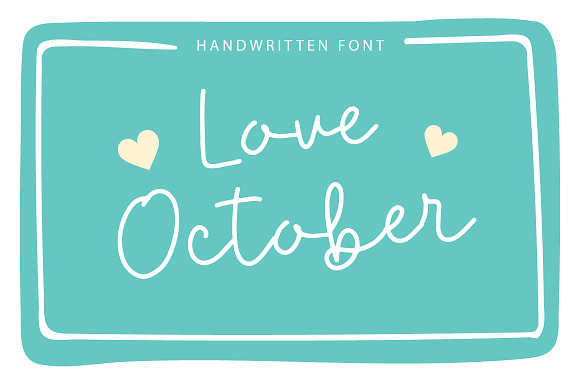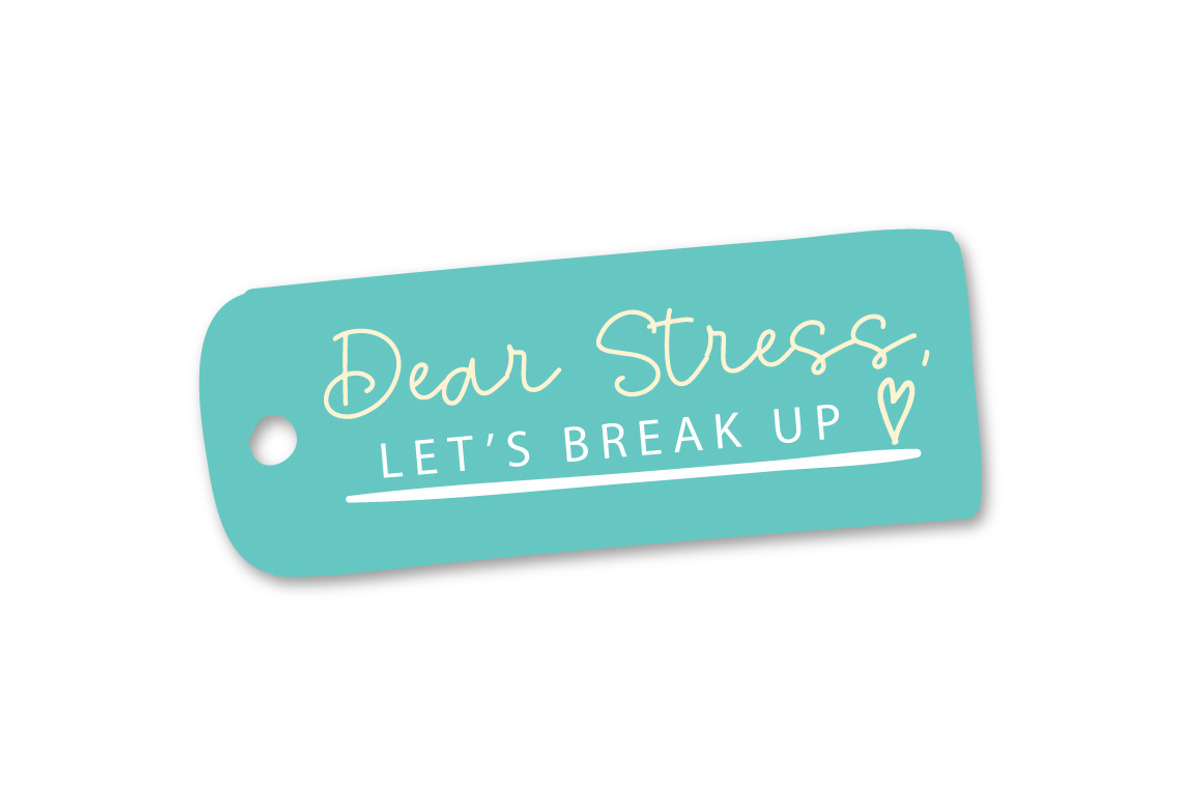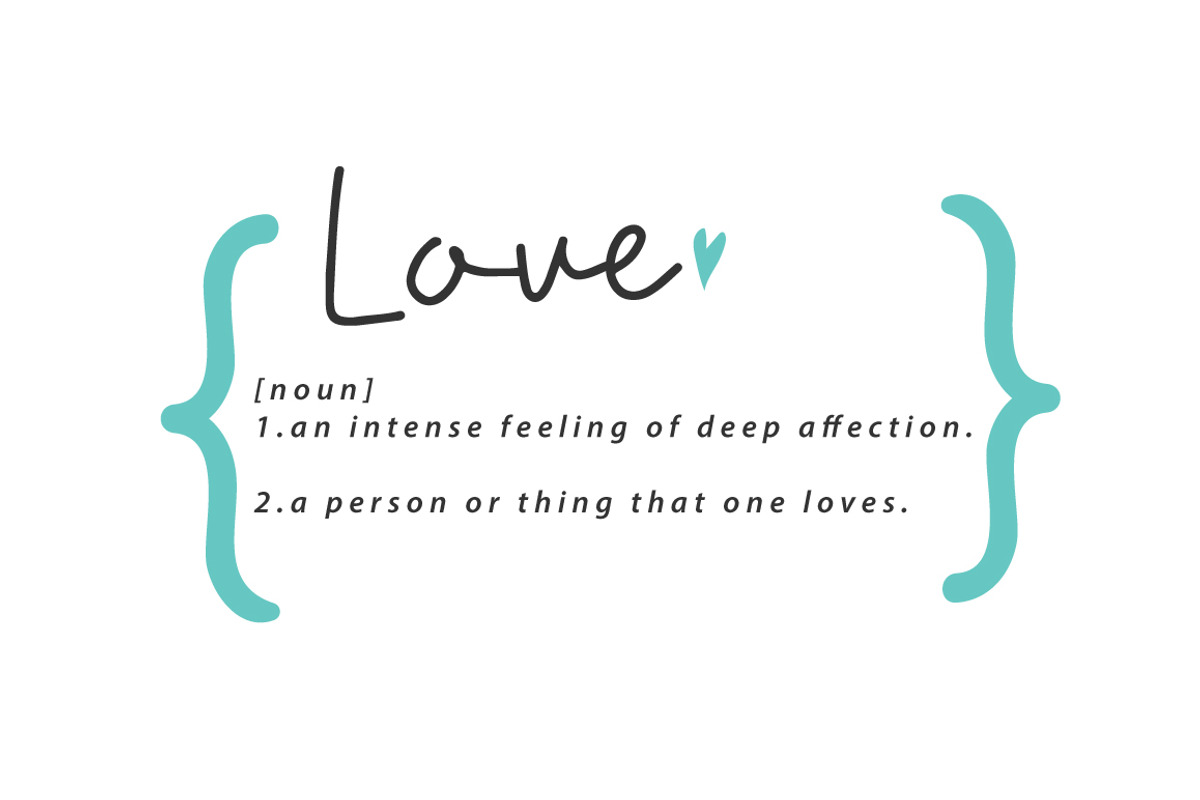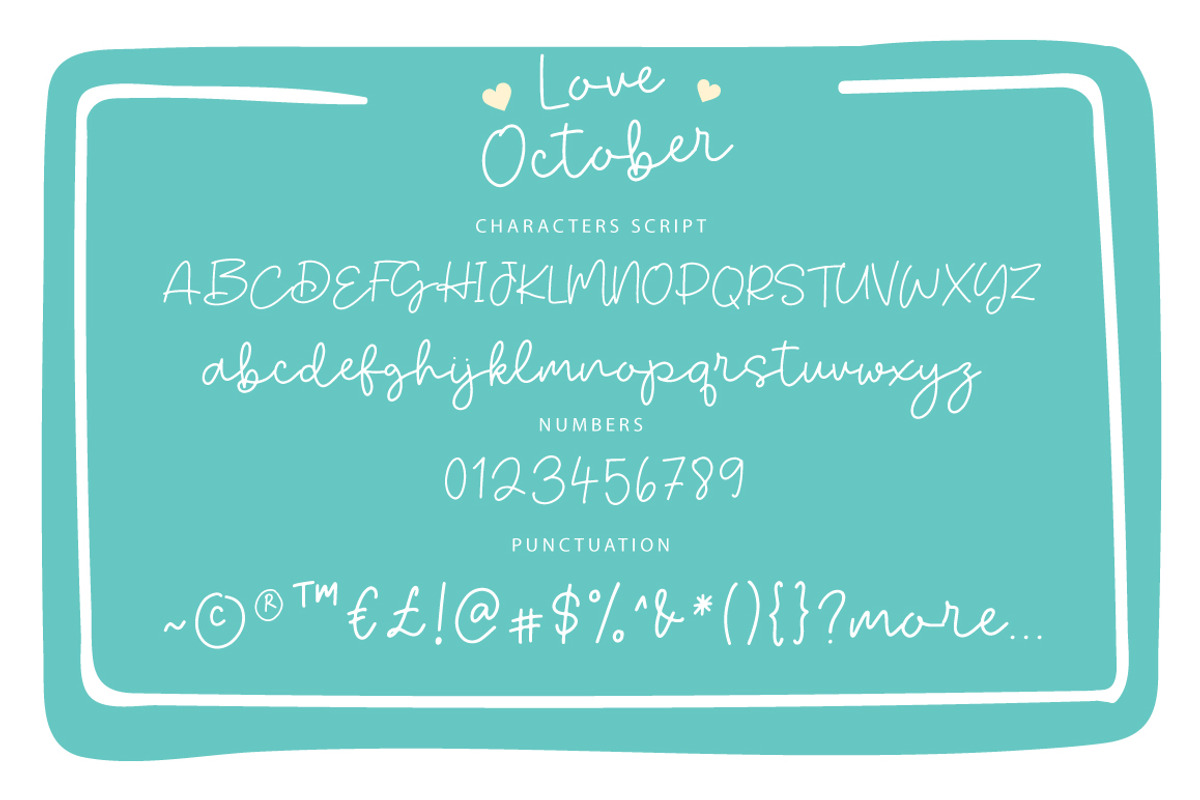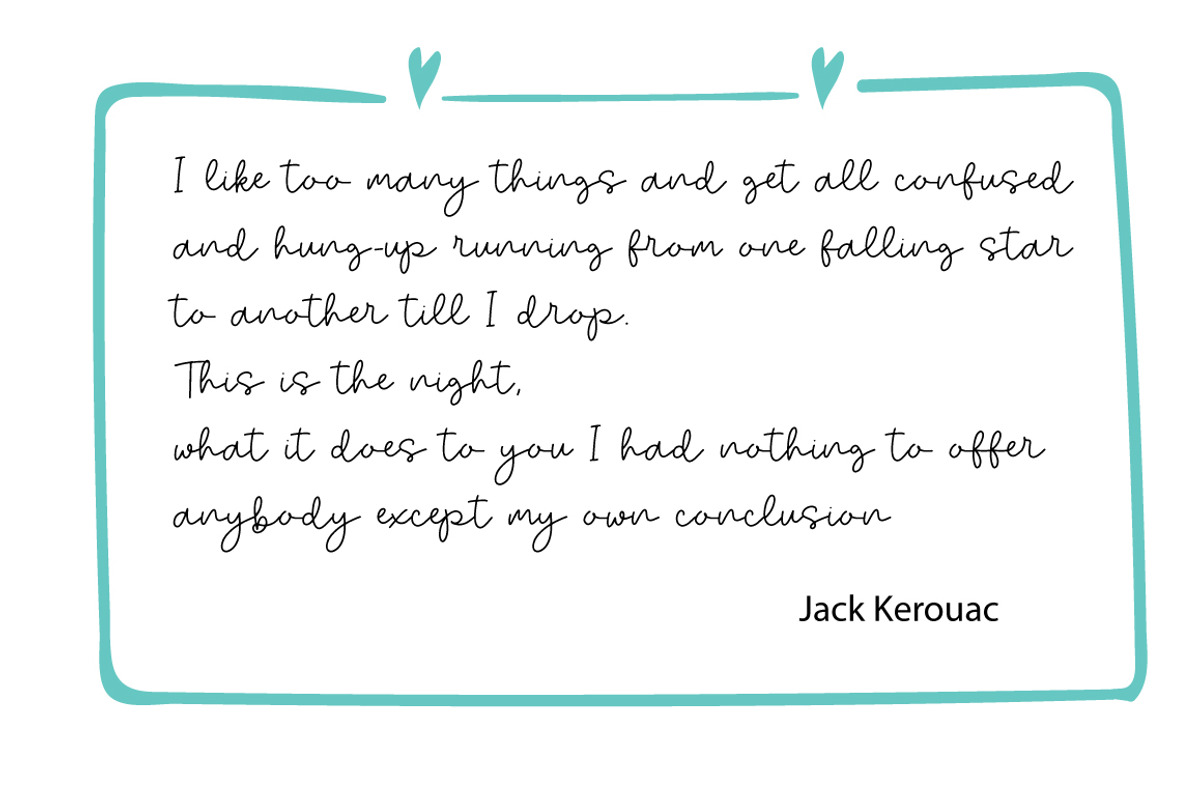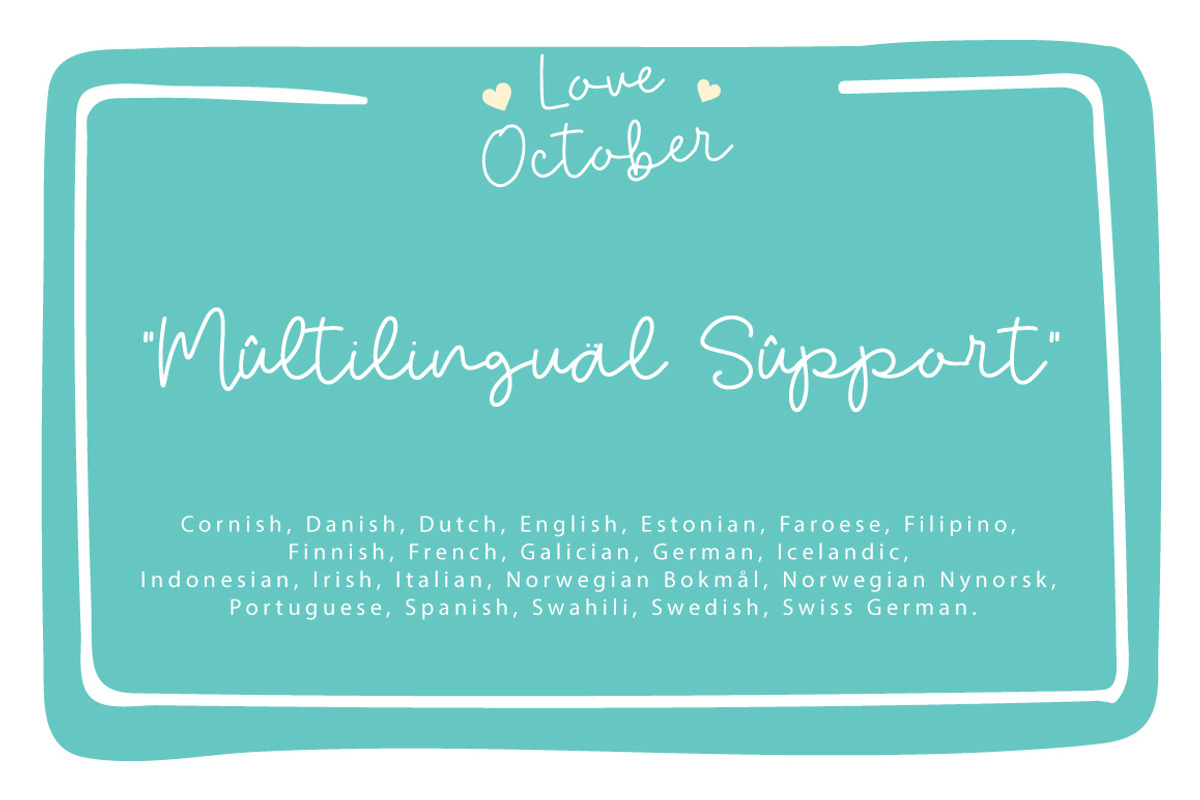
Love October | Handwritten Font
Love October is a Chic up script font.
Every single letter has been creative carefully and Perfectly for every project. This font is a little romantic script designed for making your set of invitations, quotes, blog posts, and more completely beautiful
Multilingual support for the following languages: Cornish, Danish, Dutch, English, Estonian, Faroese, Filipino, Finnish, French, Galician, German, Icelandic, Indonesian, Irish, Italian, Norwegian Bokmål, Norwegian Nynorsk, Portuguese, Spanish, Swahili, Swedish, Swiss German.